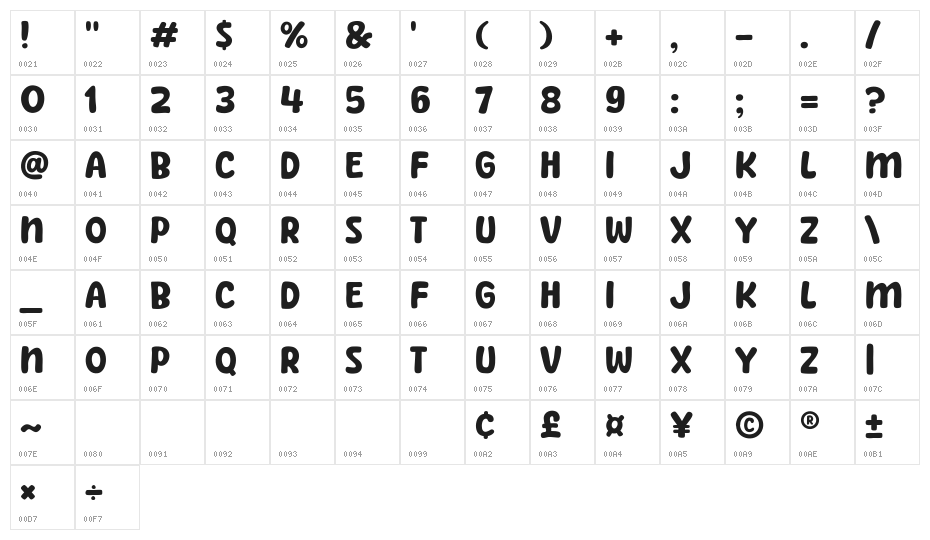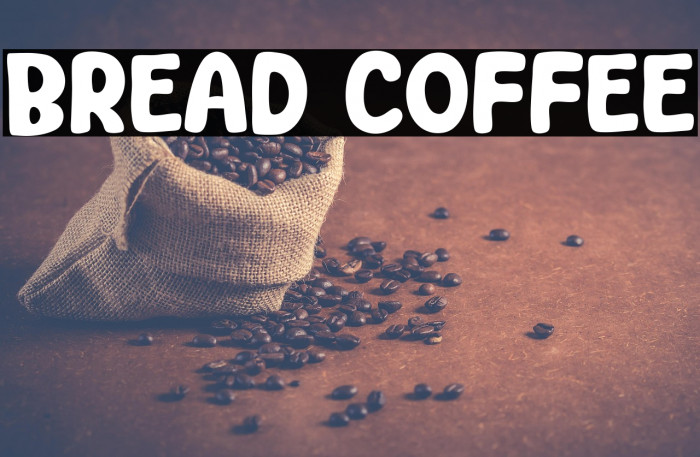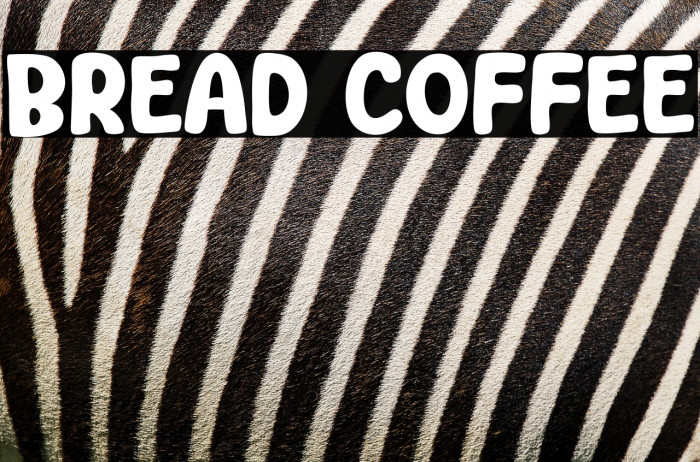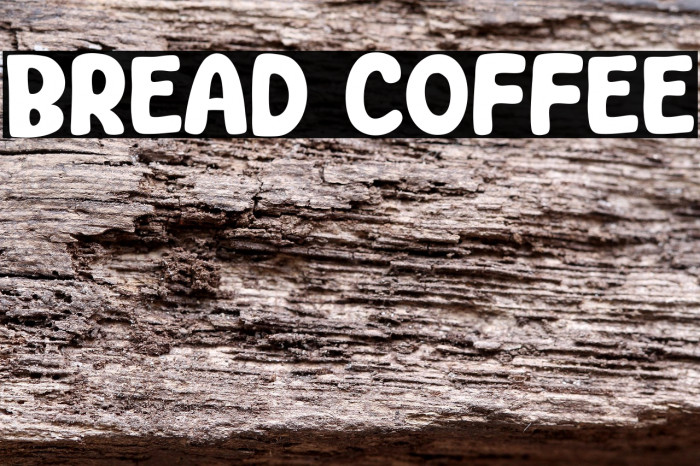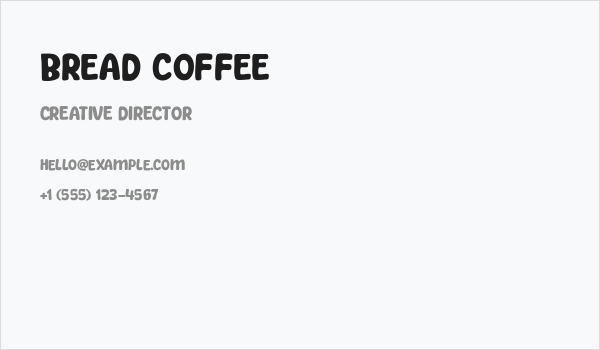
Bread Coffee Font
Bread Coffee Description
This playful and bold font features rounded, thick strokes that give it a friendly and approachable appearance. The characters are uniformly wide, with a consistent stroke weight that creates a cohesive look across both uppercase and lowercase letters. The numbers and special characters maintain the same playful style, making it versatile for various uses. Its rounded edges and smooth curves contribute to a casual and informal vibe, ideal for projects that aim to convey warmth and approachability. The font's design is simple yet effective, making it easy to read while still being visually engaging.
| Overall Style | Playful |
| Proposed Projects | Ideal for children's books, playful branding, casual invitations, and social media graphics. |